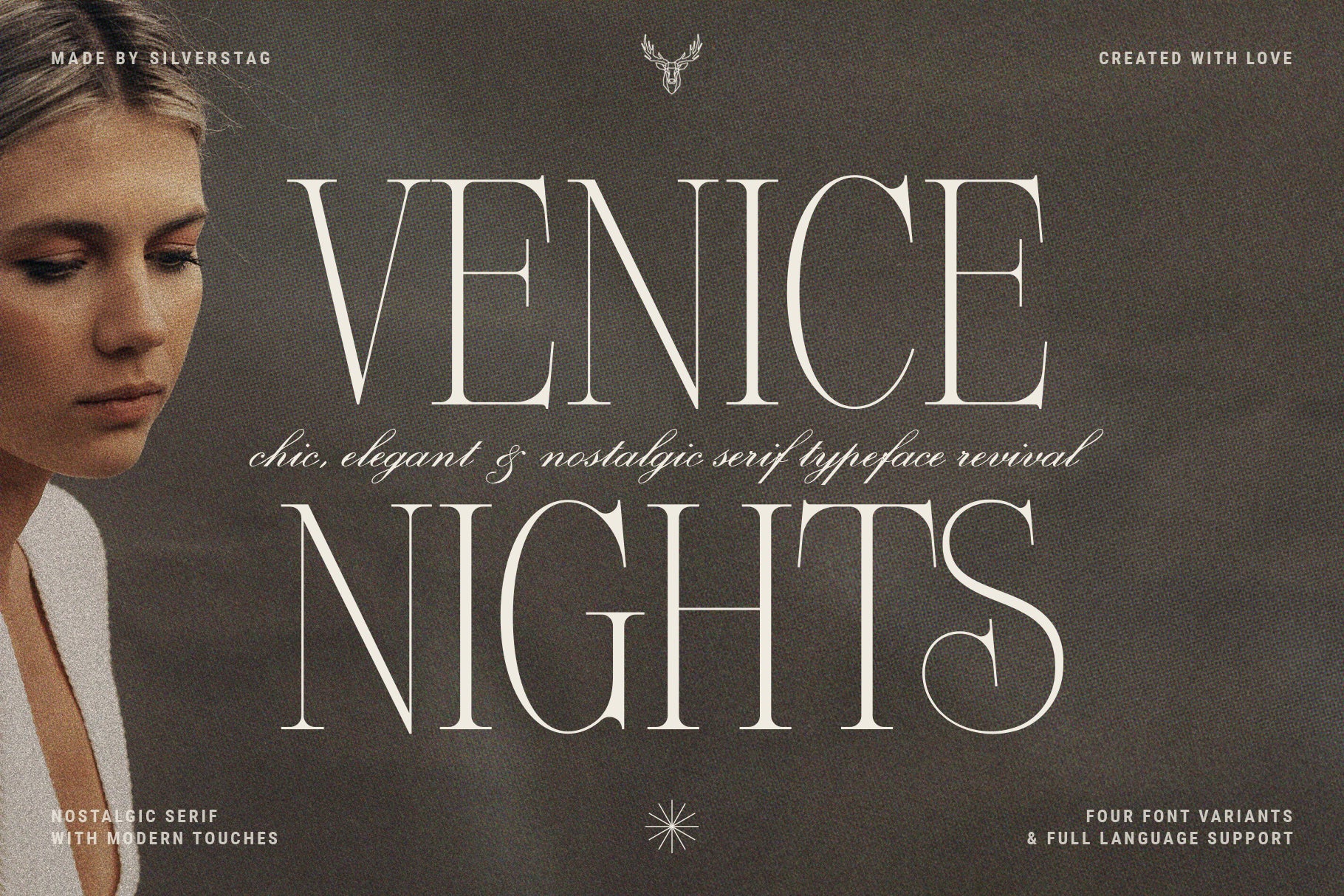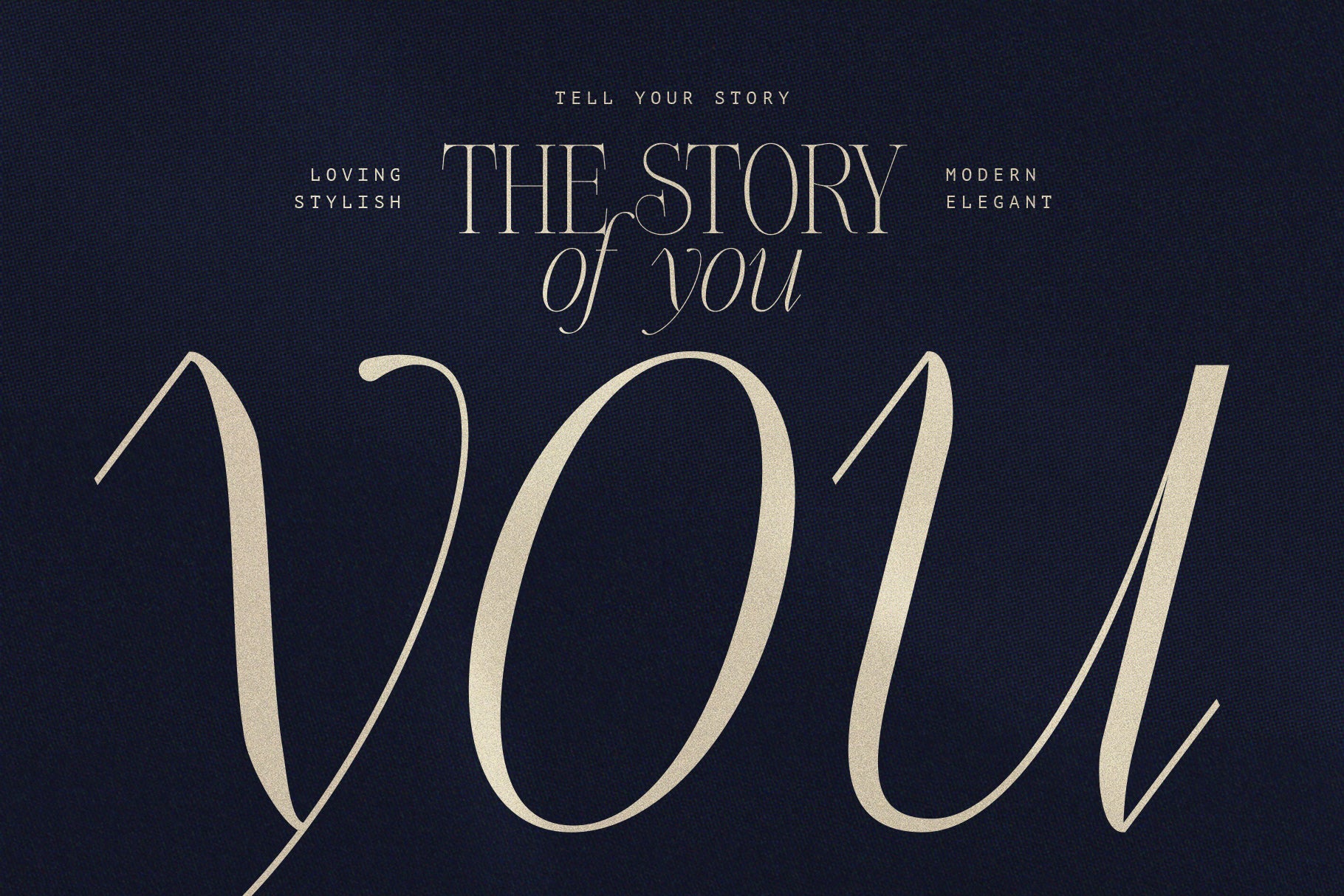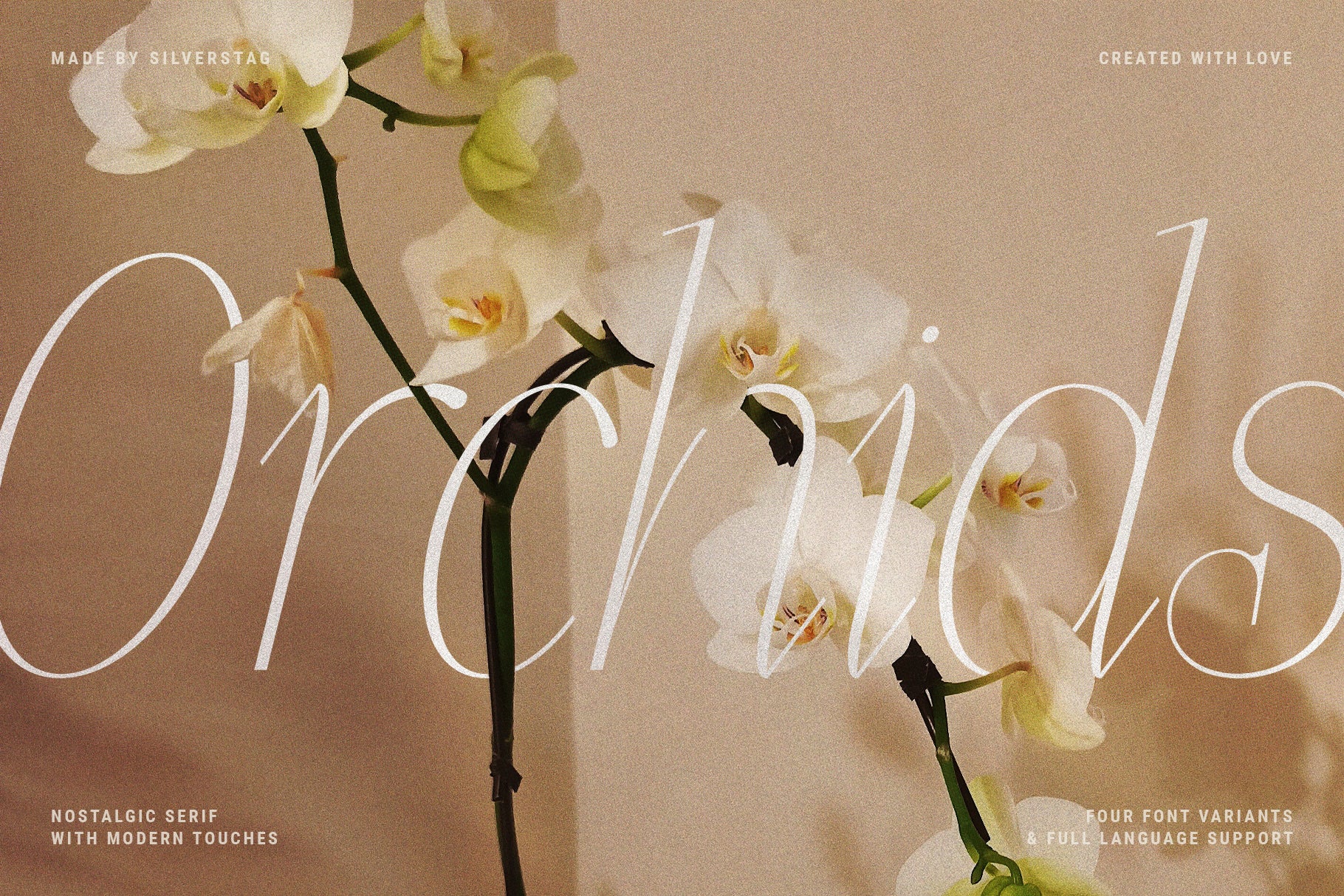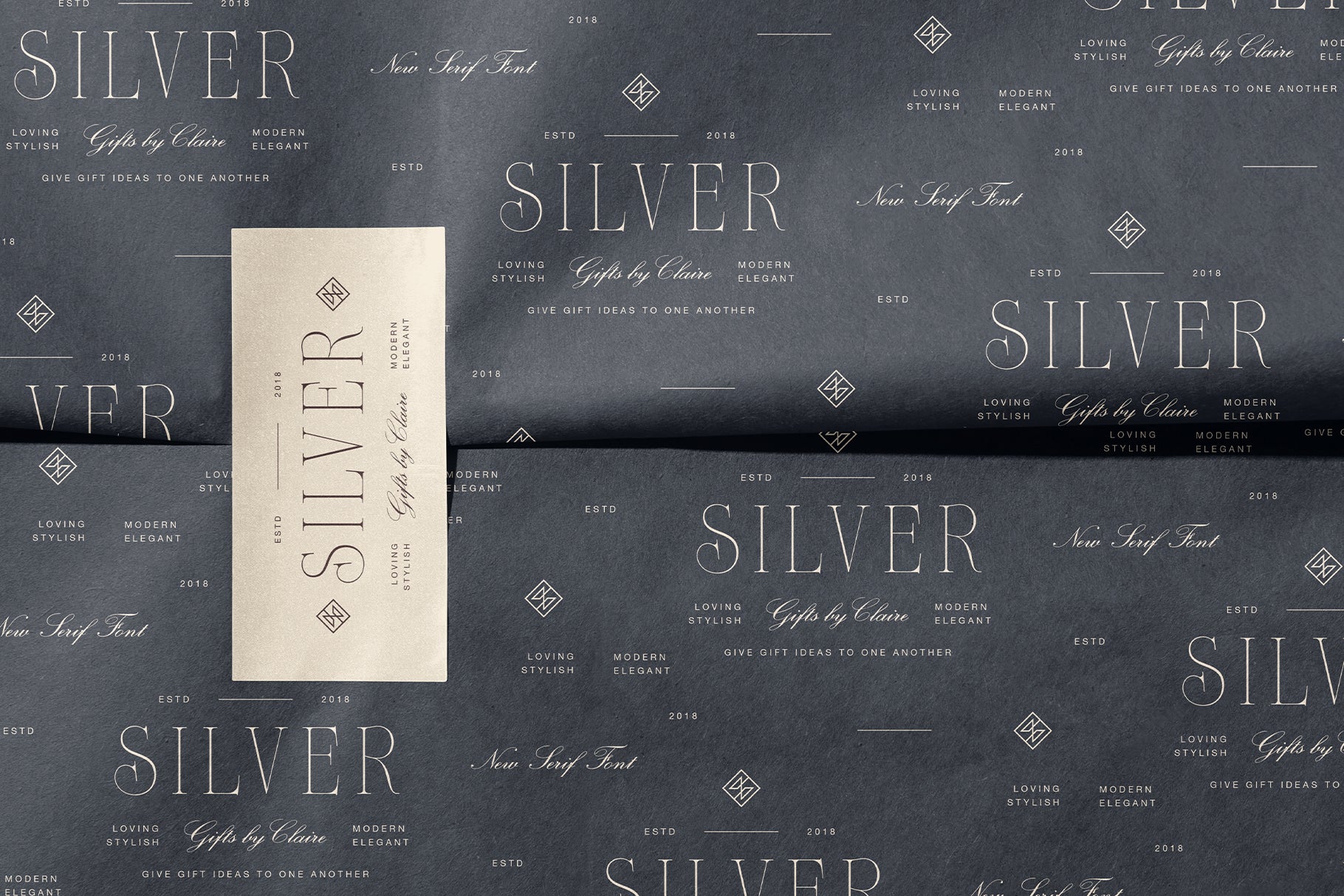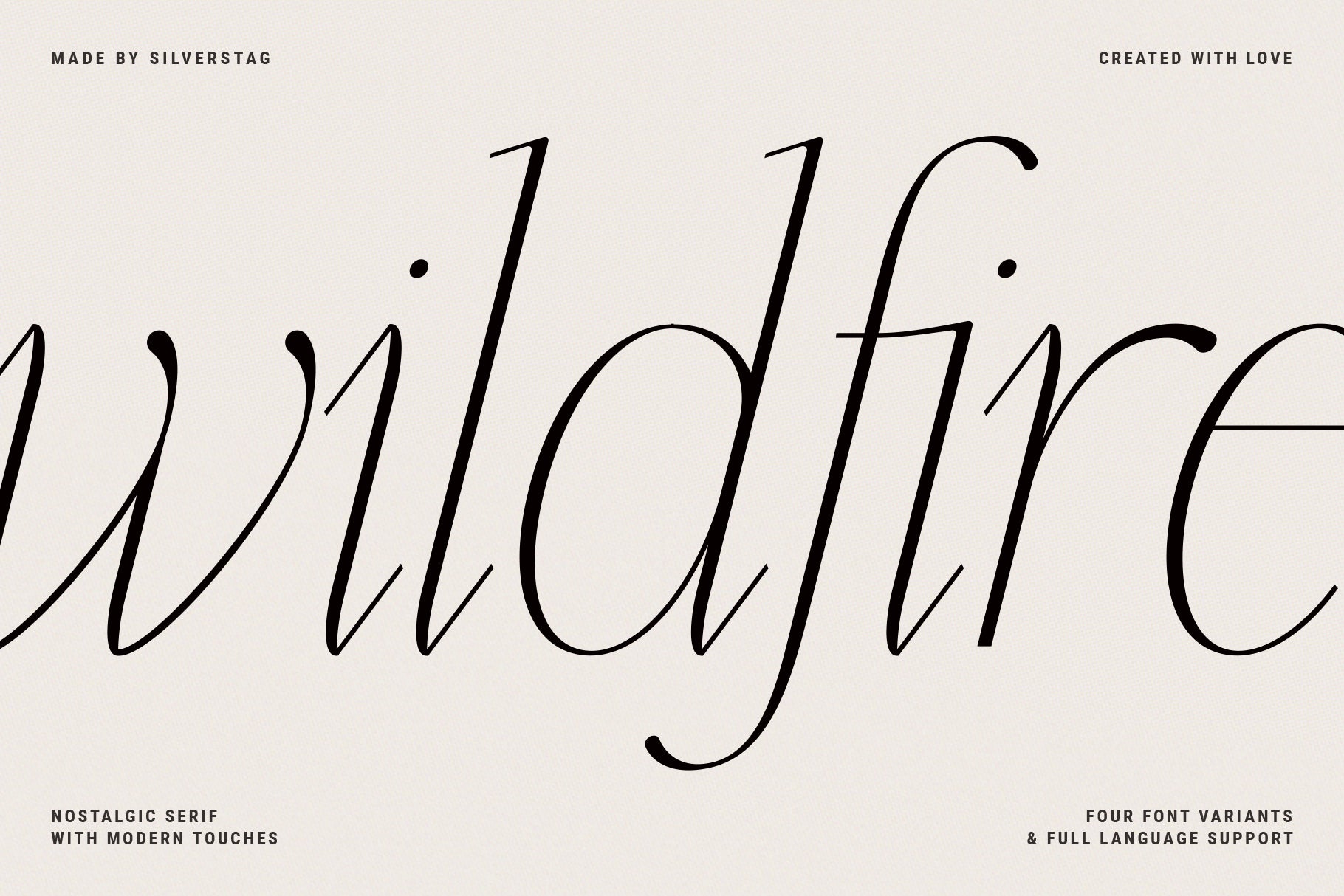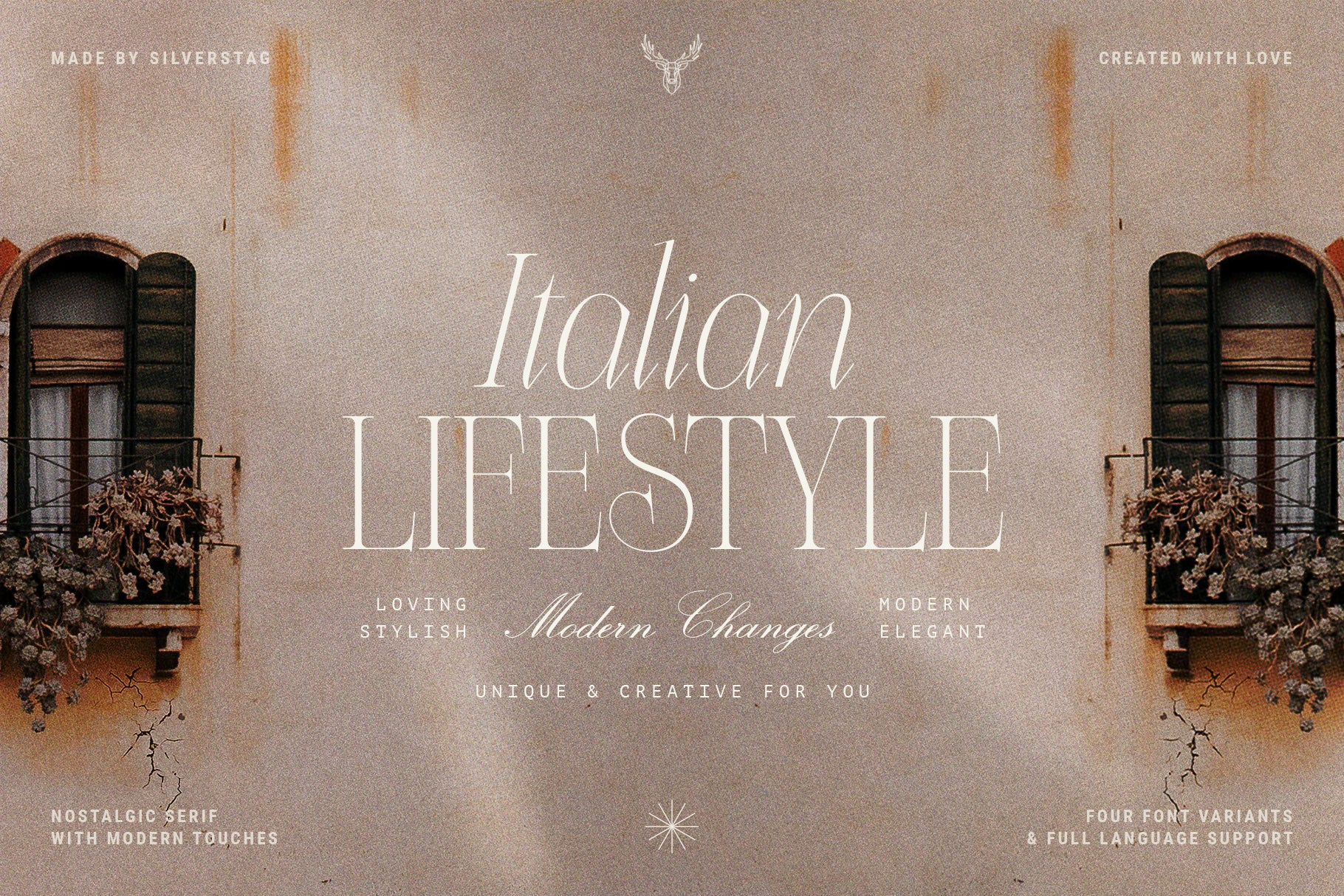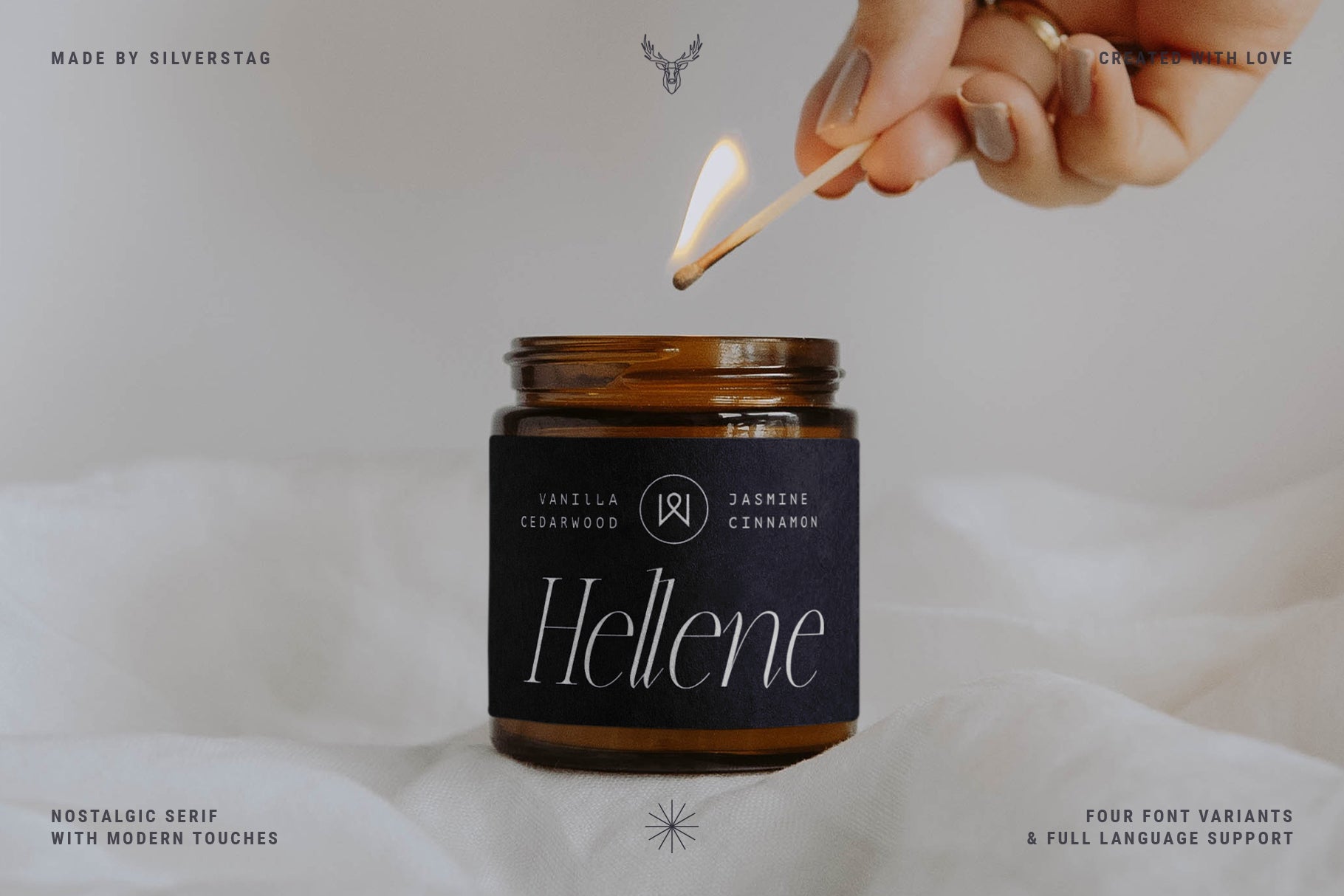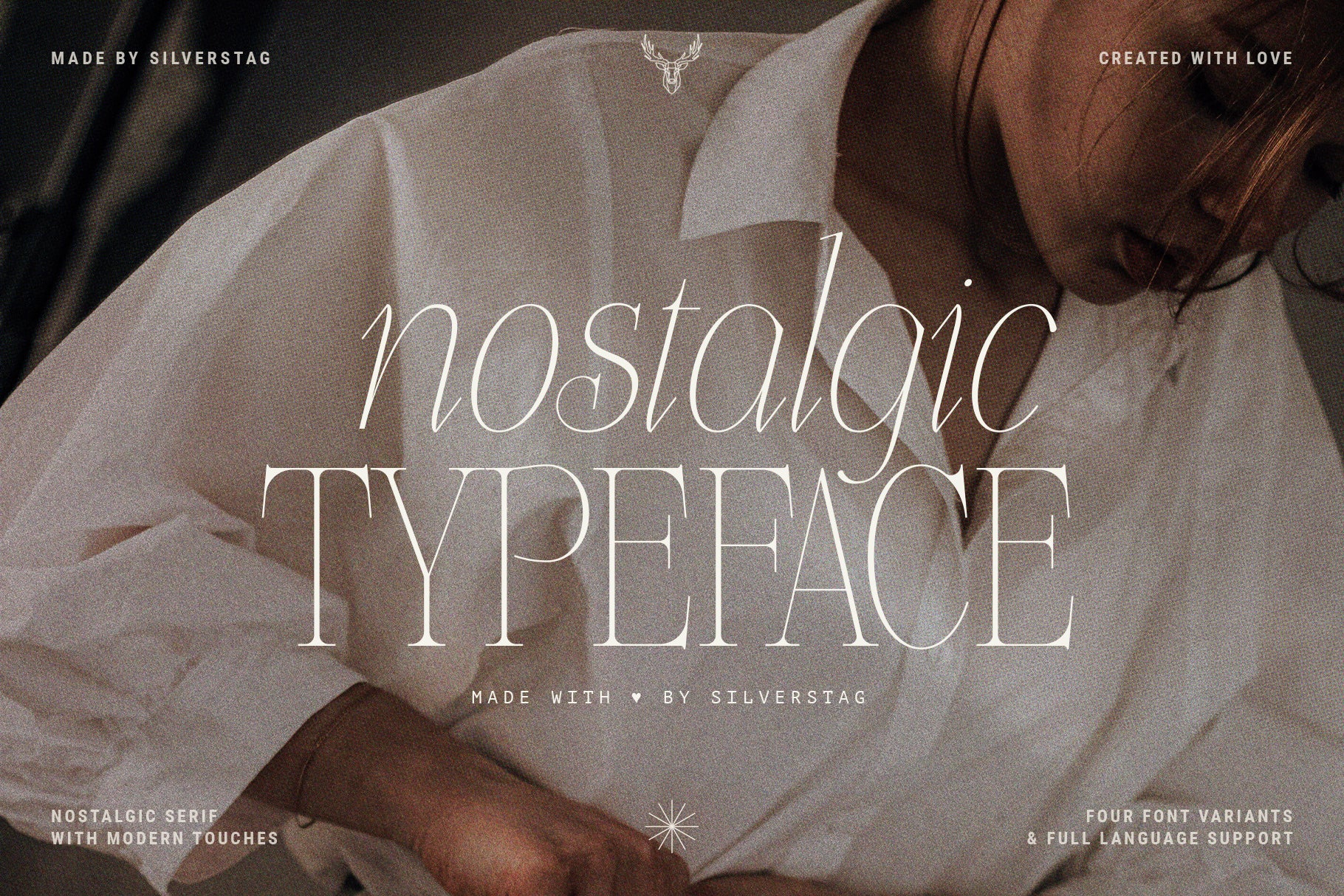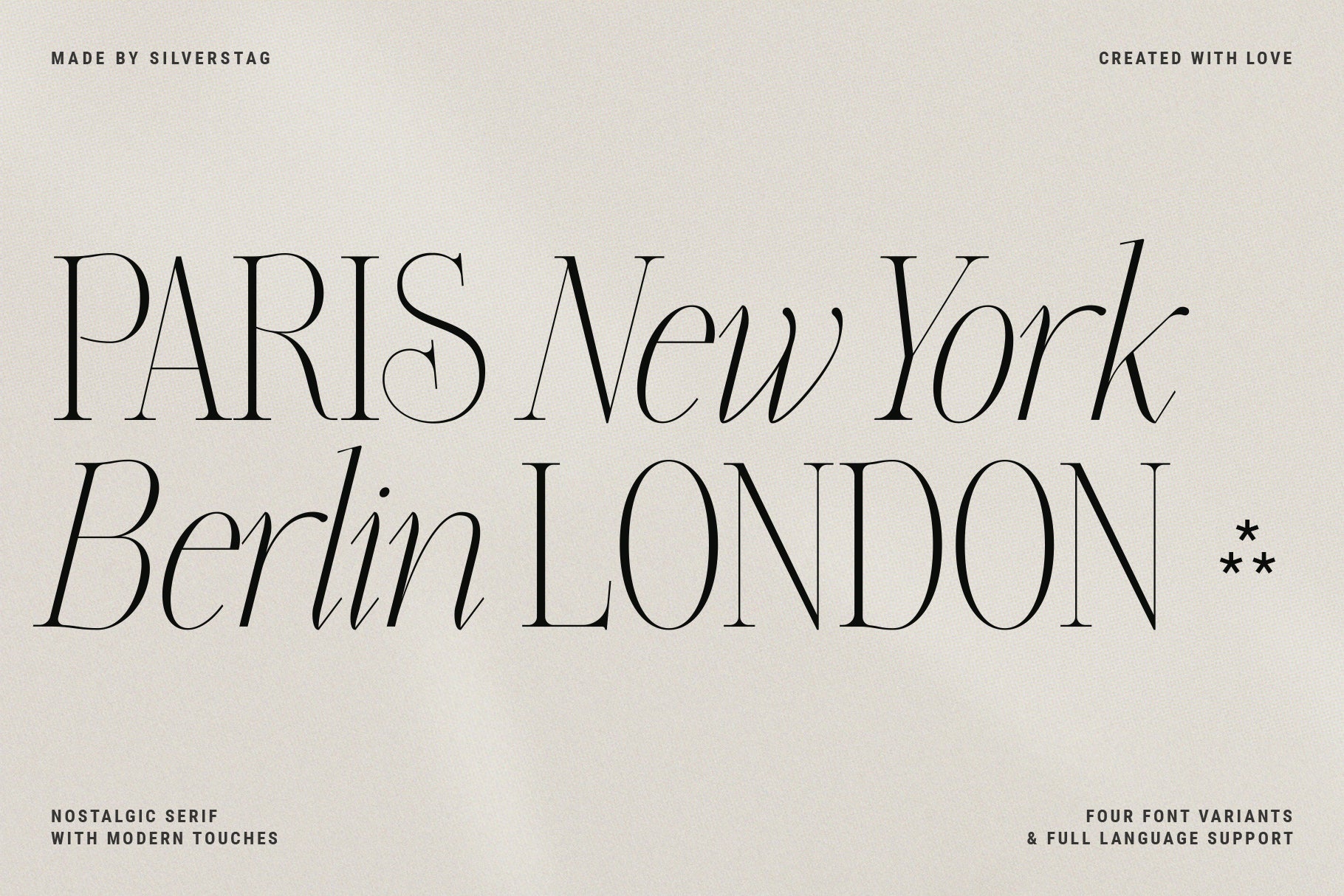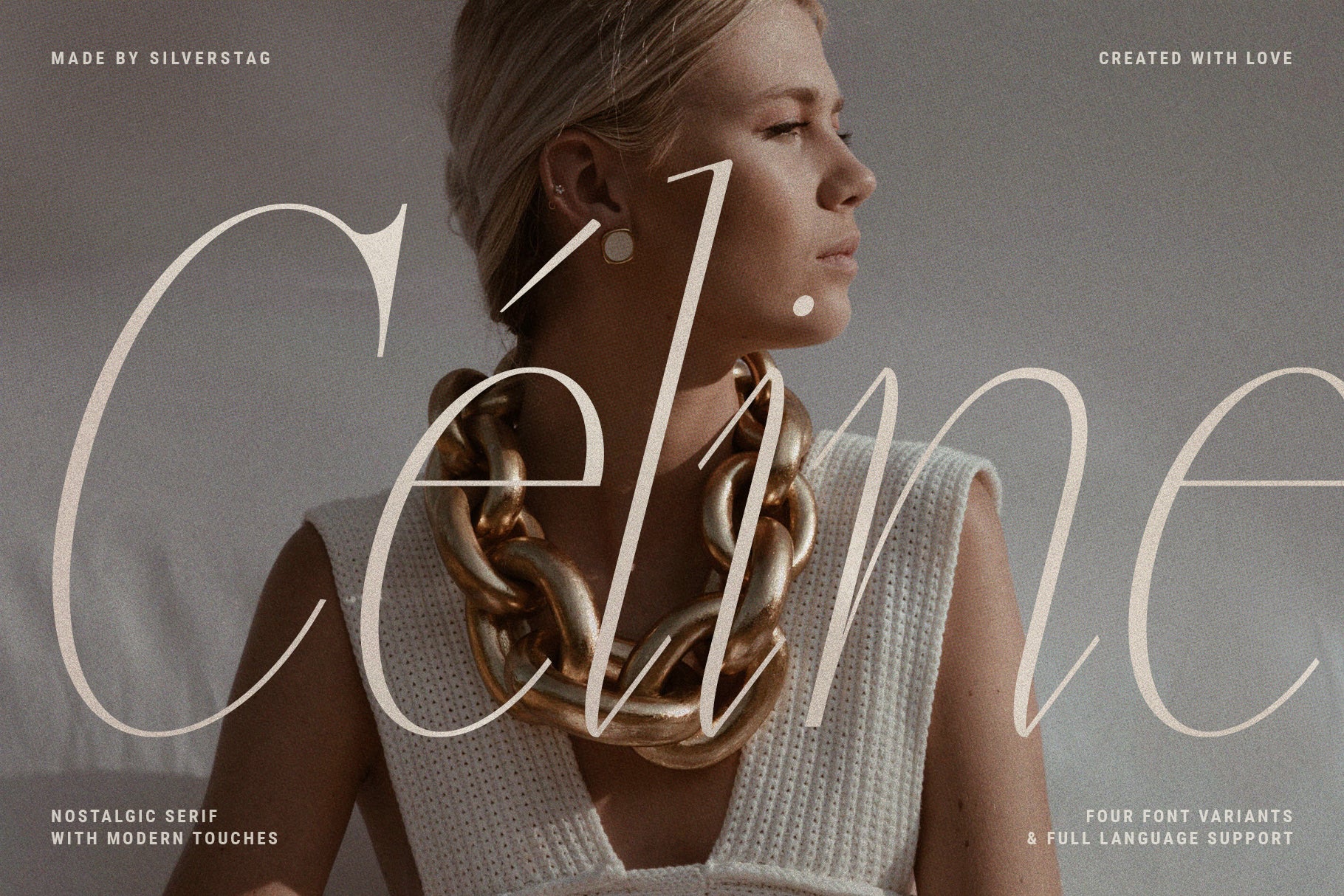
Venice Nights is a curvy, elegant, and artful serif font that channels vintage glamour and nostalgic charm into a bold modern revival. With a perfect balance of angled serifs and soft curves, this typeface brings timeless sophistication to any design.
The pack includes four font styles—Regular, Italic, Bold, and Bold Italic—allowing you to layer, mix, and match for custom typographic expressions. Whether you’re working on logos, quotes, packaging, websites, editorial spreads, or newsletters, Venice Nights delivers both drama and finesse.
• 4 Versatile Styles – Regular, Italic, Bold, and Bold Italic for easy pairing
• Chic & Nostalgic Vibe – Vintage-inspired forms with a contemporary edge
• Multilingual Support – Covers 90+ languages
• Curated Ligatures – Adds elegant rhythm and custom flair to your text